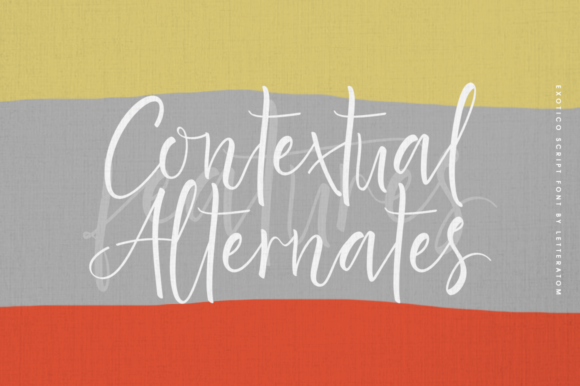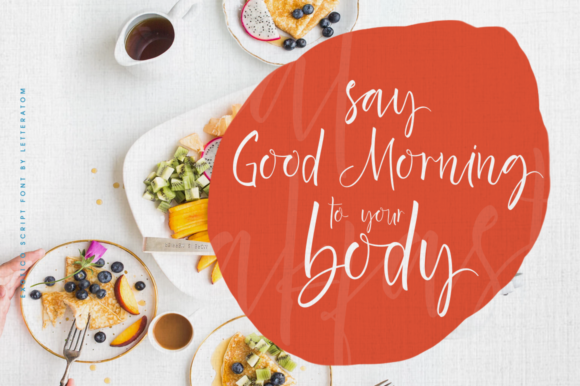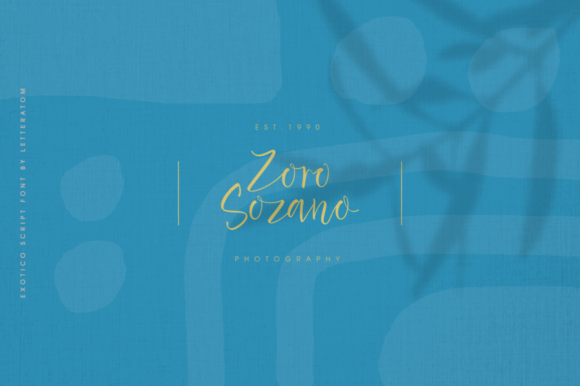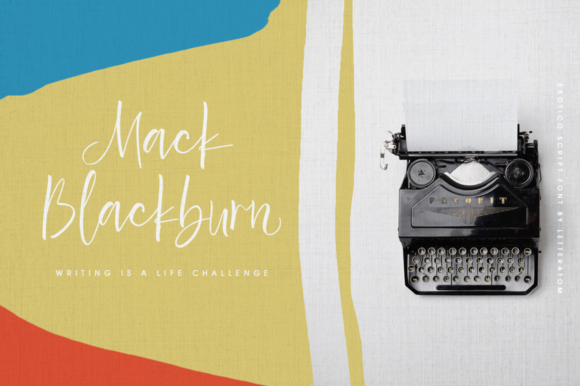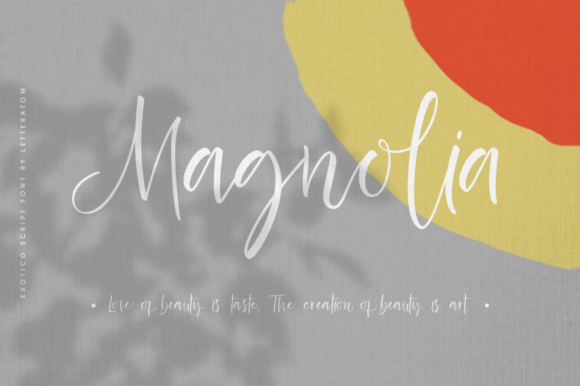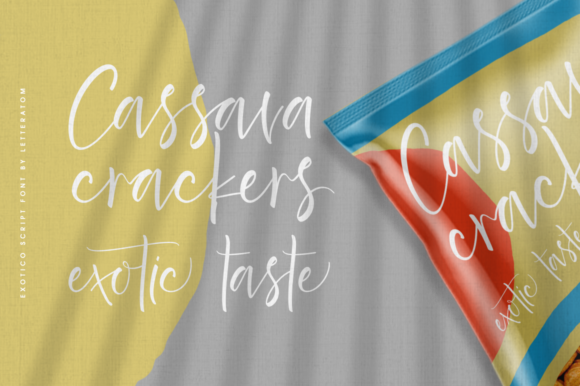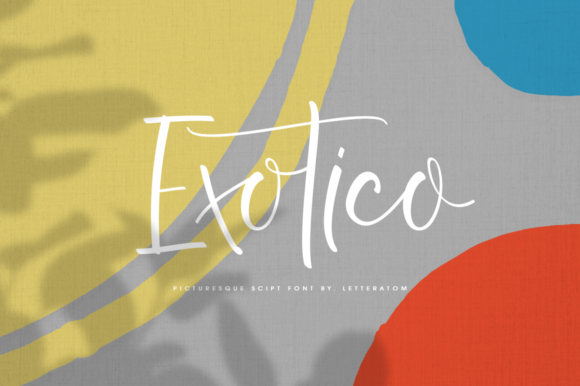
Introducing Exotico Font: A Stunning Script to Elevate Your Designs
Are you tired of using the same old fonts in your designs? Look no further than Exotico Font, a breathtaking script that is sure to add a touch of personality to any project. With its picturesque and radiant style, Exotico is the perfect choice for designers and crafters looking to give their work a fresh new feel.
The Unique Charm of Exotico Font
Exotico Font is a true standout in the world of typography. Its stunning script style is full of flair and elegance, making it perfect for a wide range of design applications. Whether you’re working on a logo, a poster, or a website, Exotico is sure to make a lasting impression. Its unique charm lies in its ability to balance sophistication with playfulness, making it an excellent choice for designers who want to add a touch of whimsy to their work.
What Makes Exotico Font So Special?
So, what sets Exotico Font apart from other scripts on the market? Here are just a few of its standout features:
- Radiant Style: Exotico Font has a radiant style that is sure to catch the eye. Its elegant lines and curves make it perfect for designs that require a touch of sophistication.
- Picturesque Touch: With its picturesque touch, Exotico Font is perfect for designers who want to add a touch of whimsy to their work. Its unique style is sure to make your designs stand out from the crowd.
- Full of Personality: Exotico Font is a script that is full of personality. Its stunning style is sure to add a touch of charm to any design, making it perfect for designers who want to create work that is truly unique.
How to Use Exotico Font in Your Designs
Exotico Font is incredibly versatile, making it perfect for a wide range of design applications. Here are just a few ideas to get you started:
- Logos and Branding: Exotico Font is perfect for logos and branding projects that require a touch of elegance and sophistication.
- Posters and Flyers: Add a touch of whimsy to your posters and flyers with Exotico Font. Its unique style is sure to make your designs stand out from the crowd.
- Websites and Blogs: Exotico Font is also perfect for websites and blogs that require a touch of personality. Its stunning style is sure to make your online presence truly unique.
Why Designers and Crafters Love Exotico Font
Exotico Font has quickly become a favorite among designers and crafters, and for good reason. Here are just a few reasons why:
- Easy to Read: Despite its elegant style, Exotico Font is incredibly easy to read. This makes it perfect for designs that require a touch of sophistication without sacrificing legibility.
- Highly Versatile: Exotico Font is incredibly versatile, making it perfect for a wide range of design applications.
- Unique Style: Exotico Font has a unique style that is sure to make your designs stand out from the crowd.
In conclusion, Exotico Font is a stunning script that is sure to elevate your designs to the next level. With its picturesque touch and radiant style, it’s the perfect choice for designers and crafters looking to add a touch of personality to their work. Whether you’re working on a logo, a poster, or a website, Exotico Font is sure to make a lasting impression. So why wait? Try Exotico Font today and see the difference it can make in your designs!